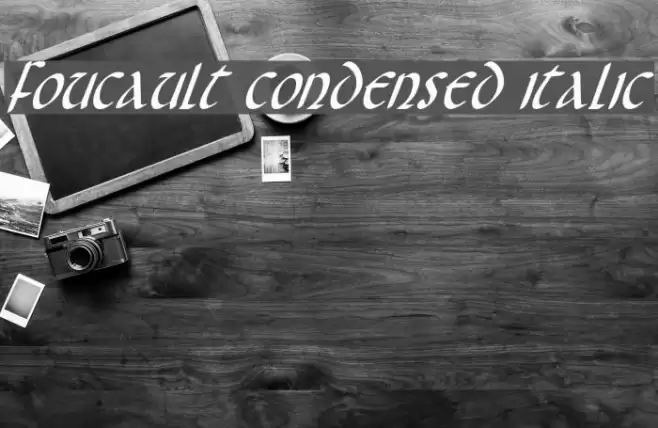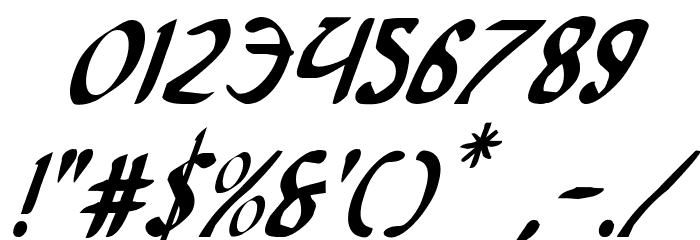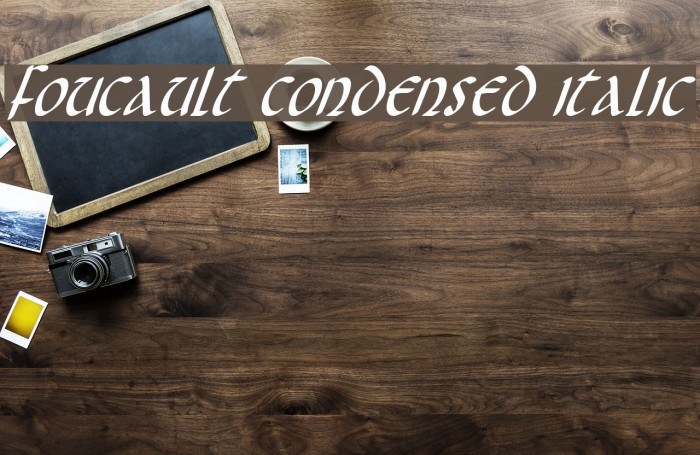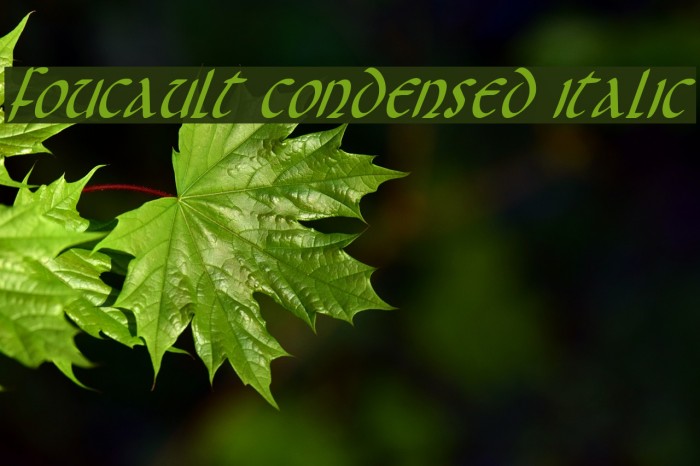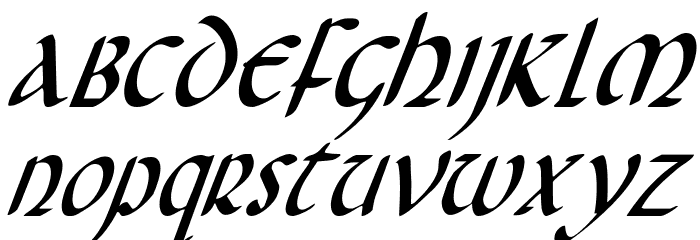
Foucault Condensed Italic Font
Foucault Condensed Italic Description
This font exhibits a dynamic and fluid style, characterized by its condensed and italicized form. The letters are elegantly slanted, giving a sense of motion and sophistication. The strokes are bold and confident, with a high contrast between thick and thin lines, enhancing its dramatic appearance. The uppercase and lowercase letters maintain a consistent flow, while the numerals and special characters integrate seamlessly into the overall design. This font's unique style makes it stand out, offering a blend of traditional calligraphy with a modern twist.
A dynamic, condensed italic font with high contrast and elegant flow from Gothic fonts.
- Proposed Projects: Ideal for branding, editorial design, invitations, and artistic projects that require a touch of elegance and movement.
- Use Case: Logos, Headlines, Invitations